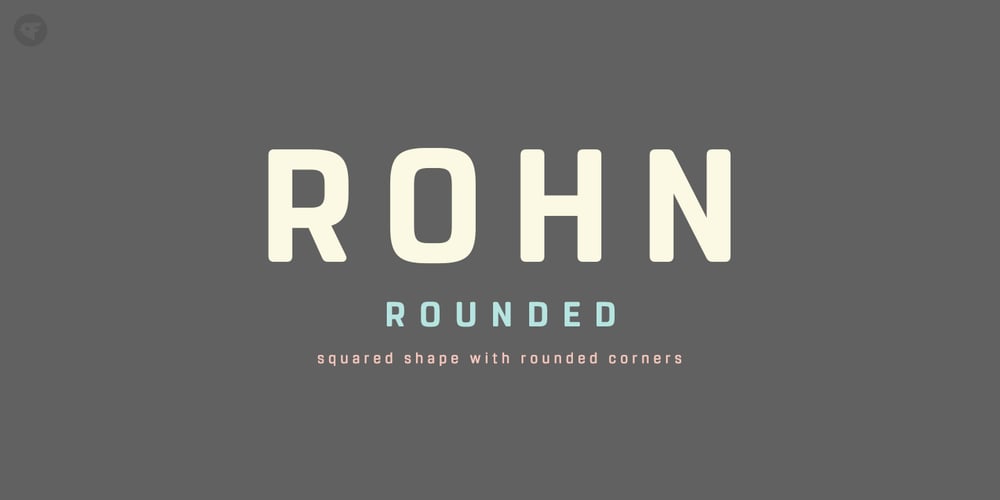
Rohn Rounded Font Family was designed by Paul Chen and published by Nine Font. Rohn Rounded contains 14 styles and family package options. Rohn Rounded is a rounded version of Rohn. This family is a modern squarish typefamily with a large x-height and soft feeling. Its letterforms are based on the shape of square with rounded corners. With particular details and large x- height, it is more legible at small sizes both on screen and paper. It has seven weights from Thin to Black with corresponding oblique styles and each weight includes ligatures, fractions, old style numbers, case-sensitive forms and more. Rohn Rounded is ideally suited for branding, logo, packaging, magazine, poster and editorial design.